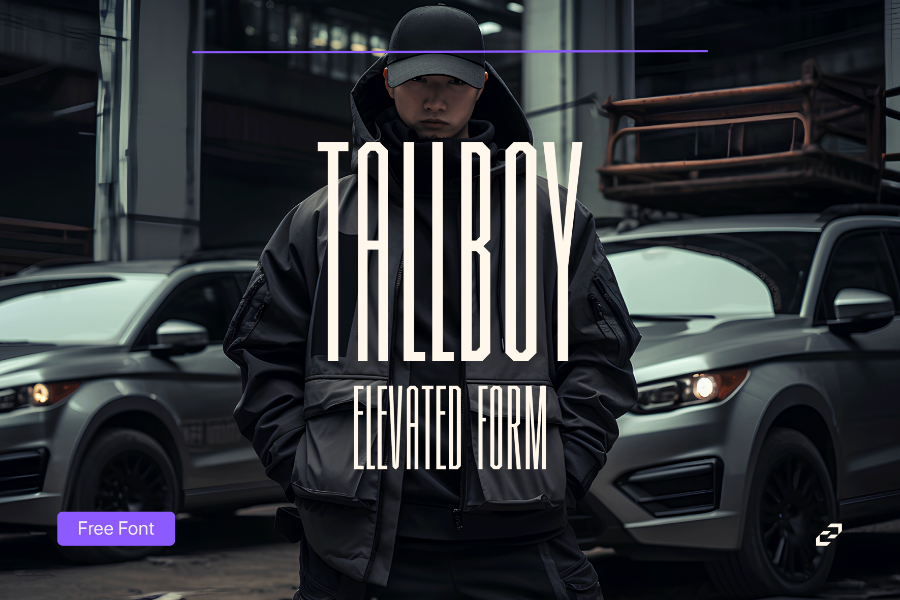
Tallboy - Ultra-Condensed Caps Font for Tall, Loud Headlines
An all-caps ultra-condensed font that makes every headline stand upright and stand out.
Style: Tall Display Sans Serif
Best For: Editorial headlines, fashion branding, portfolio titles, modern logos.
Key Features:
- Tall, narrow proportions
- Strong, confident letterforms
- Ideal for striking display text